Halloween Fonts for Every Frightfully Fun Project
Halloween season calls for typography with personality — dripping, jagged, bone-inspired, or delightfully witchy. This collection of 34 Halloween fonts covers a wide range of spooky styles, from skeletal decorative type and gore-inspired display fonts to vintage Halloween lettering and bold, chunky display faces built to grab attention on posters and packaging.
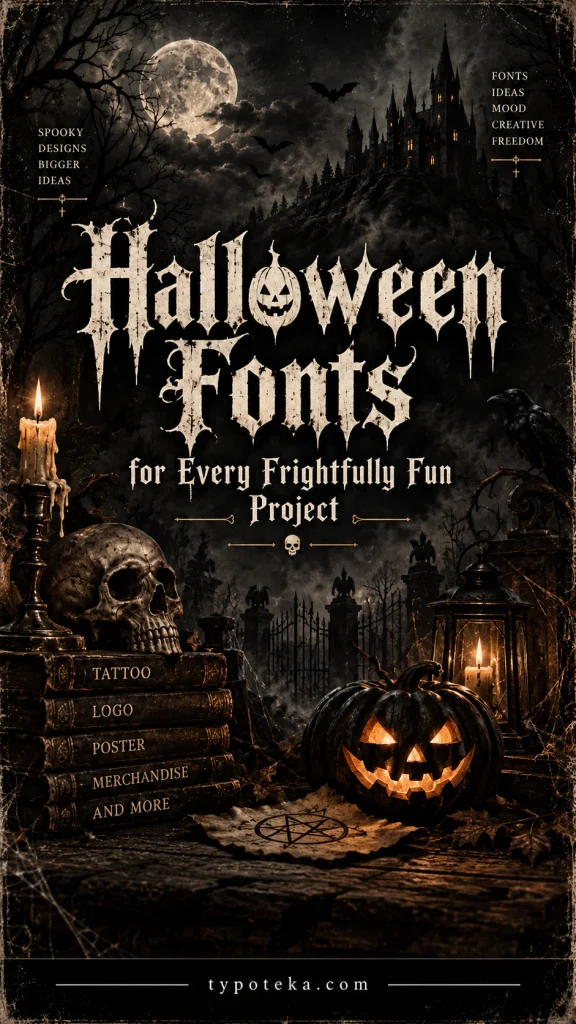
1. Naughty Halloween
Introducing Naughty Halloween, a captivating display font radiating with the mystical allure of Halloween and the vitality of unrestrained creativity. Crafted meticulously for the addition of a stirring dose of the whimsical, the mysterious, or the charm of fall into your artistic creations.
Naughty Halloween serves as the ultimate compliment to Halloween banners, adorable packaging, stylish fashion graphics, children’s book covers, merchandise, product tags, decals, and stationery, imbuing them with a captivating and delightful charisma.
View This Font →2. Gorvex
Unleash raw street art attitude, thrilling horror vibes, and creepy slime aesthetic with GORVEX! Designed as a bold graffiti melted display font, it features heavy blocky letterforms dripping with liquid slime, organic ooze details, and raw urban street-art edges.
Ideal for Halloween party invitations, horror movie posters, street style apparel, spooky sticker packs, monster-themed event banners, gaming graphics, and custom Cricut or Silhouette craft SVG projects!
View This Font →3. Grimbone
GRIMBONE is a dark and haunting decorative typeface inspired by skeletal forms, gothic folklore, ancient bones, and eerie Halloween aesthetics. Its intricate letterforms feature bone-like contours, twisted details, and ornamental shapes that create a mysterious and sinister visual character.
Perfect for Halloween artwork, horror posters, gothic branding, haunted house designs, album covers, apparel, tattoos, packaging, invitations, merchandise, and other dark-themed creative projects. GRIMBONE brings an unforgettable skeletal personality to every word—strange, eerie, decorative, and unmistakably gothic.
View This Font →4. Gorefang
Experience a brooding atmosphere brought to life with Gorefang, a fierce horror-themed display typeface engineered for endeavors requiring a striking, memorable ambiance. Characterized by a natural, weathered and distressed appeal, Gorefang adds a chilling medieval and gothic vibe to your creations.
Ideally Suited for: Chiller Movie Headings, Halloween Artifacts, Heavy Metal Band Personas, Album Illustrations, Gaming Insignia, Fantasy Identity, Bibliophile Casings, Poster Creations, Apparel Artistry, Merchandise Layout, Social Media Imagery, Branding with a Dark Aura.
View This Font →5. Cloriatte
Bring energetic trick-or-treat mystery, quirky cartoon spookiness, and playful horror flair to your layouts with Cloriatte! This fun display typeface features cut-out geometric counters, expressive bouncy stems, and 26 custom ligatures along with full international language support.
Perfect for Halloween party banners, trick-or-treat candy packaging, kids’ horror book covers, haunted house flyers, sticker packs, and custom Cricut or Silhouette craft SVG projects!
View This Font →6. Stencil Halloween
Unleash your dark aesthetic creativity with Stencil Halloween, an edgy display font that blends traditional stencil lettering with a spine-chilling Halloween touch.
Ideally suited for eerie Halloween posters, hair-raising haunted house renderings, terrifying tees, party invites, logos, signage, stickers, merchandise, spectral social media graphics, horror-bound projects, and an array of spooky creative endeavours.
View This Font →7. Western Halloween
Invoke the eerie allure of the Wild West meets Halloween with the striking Western Halloween font. Laced with deep-rooted cowboy inspiration and a chilling, spectral feel, this unique display font walks the line between rustic Western charm and the dark edge of ghoulish allure.
The design leans heavily on influences from bewitching haunted saloons, retro cowboy posters, and tales of the spooky frontier, resulting in a font that exudes a worn, scarred persona filled with intriguing mystery.
View This Font →8. Vintage Halloween
Bring groovy 70s nostalgia, cute spooky charm, and playful autumn magic to your seasonal creations with VINTAGE HALLOWEEN! This retro display font pairs heavy bubble-style curves with sweeping ghost-tail swashes, wavy baselines, and whimsical witchy proportions.
Its bouncy rhythm turns every autumn layout into a delightful visual treat. Perfect for Halloween party invitations, autumn festival apparel, trick-or-treat tote bags, spooky quote prints, sticker packs, and custom Cricut or Silhouette craft SVG projects!